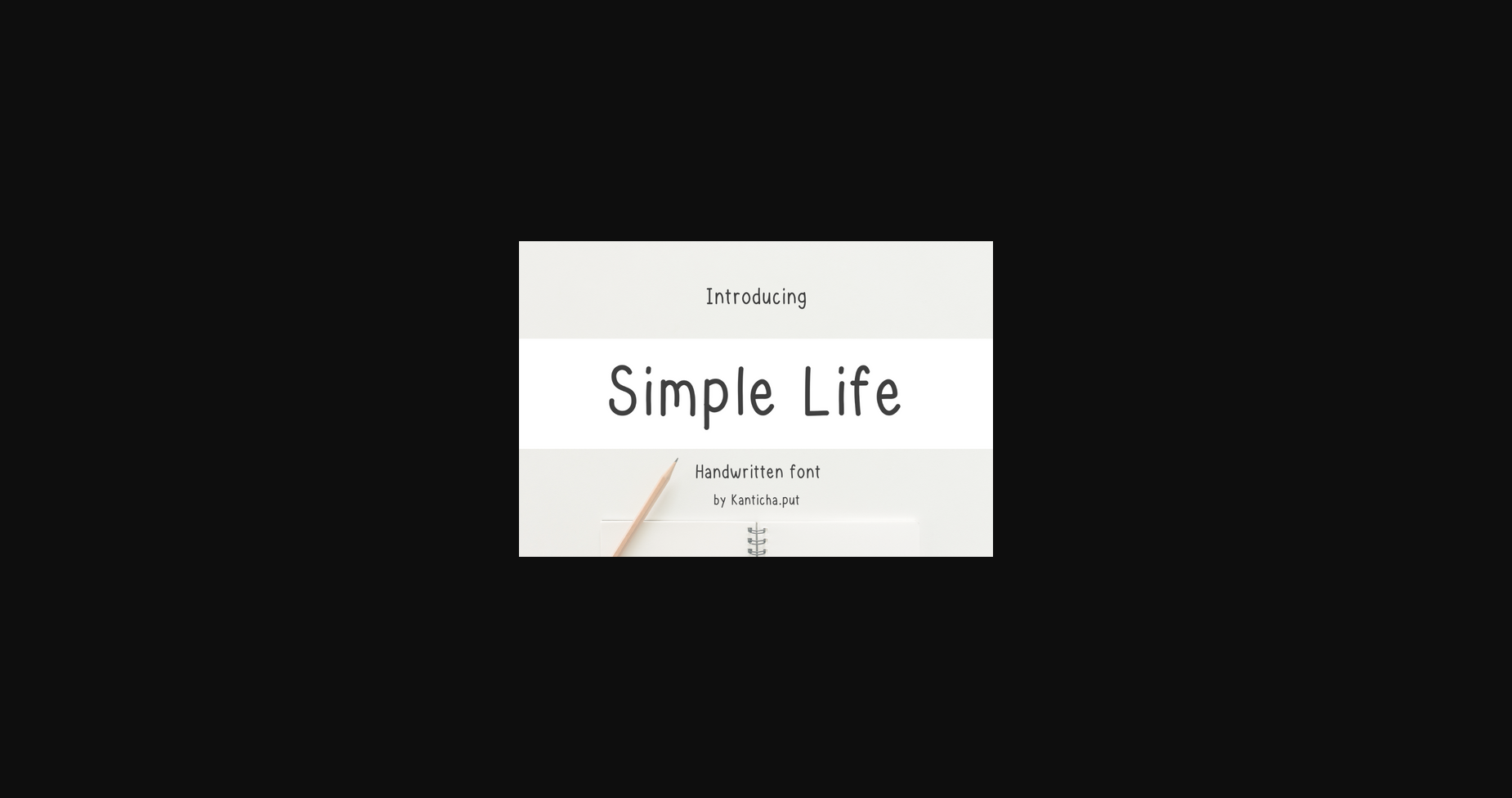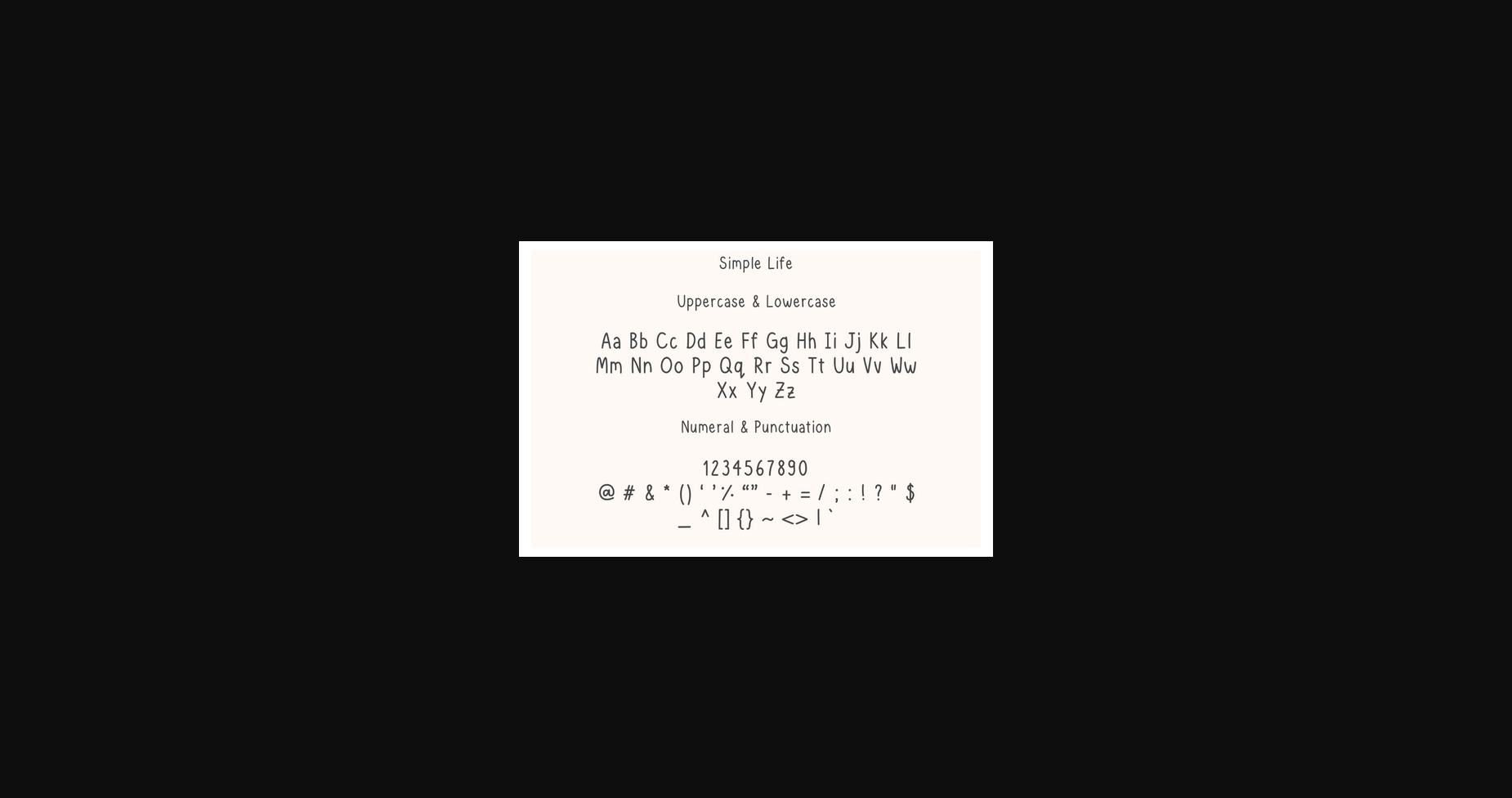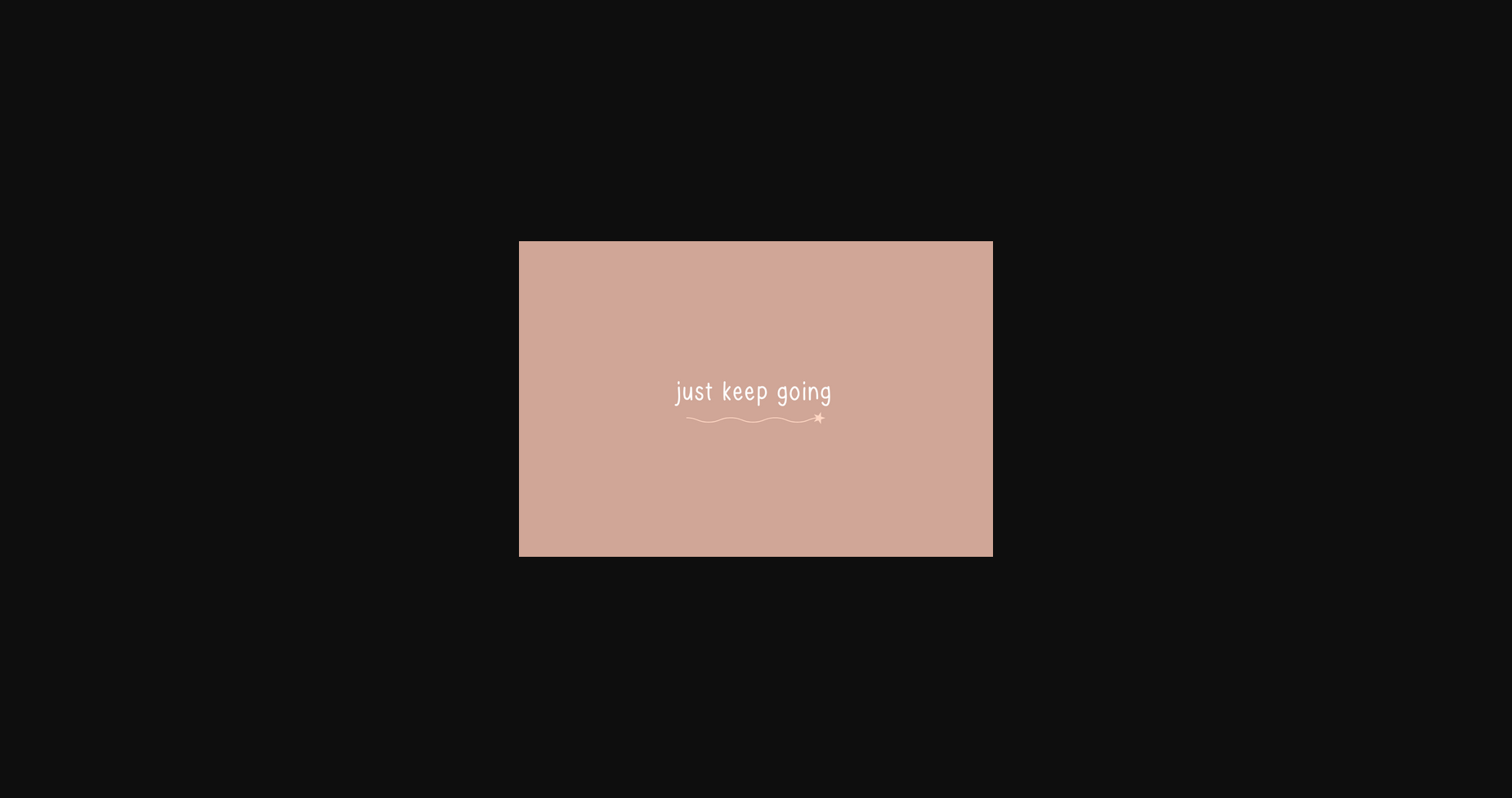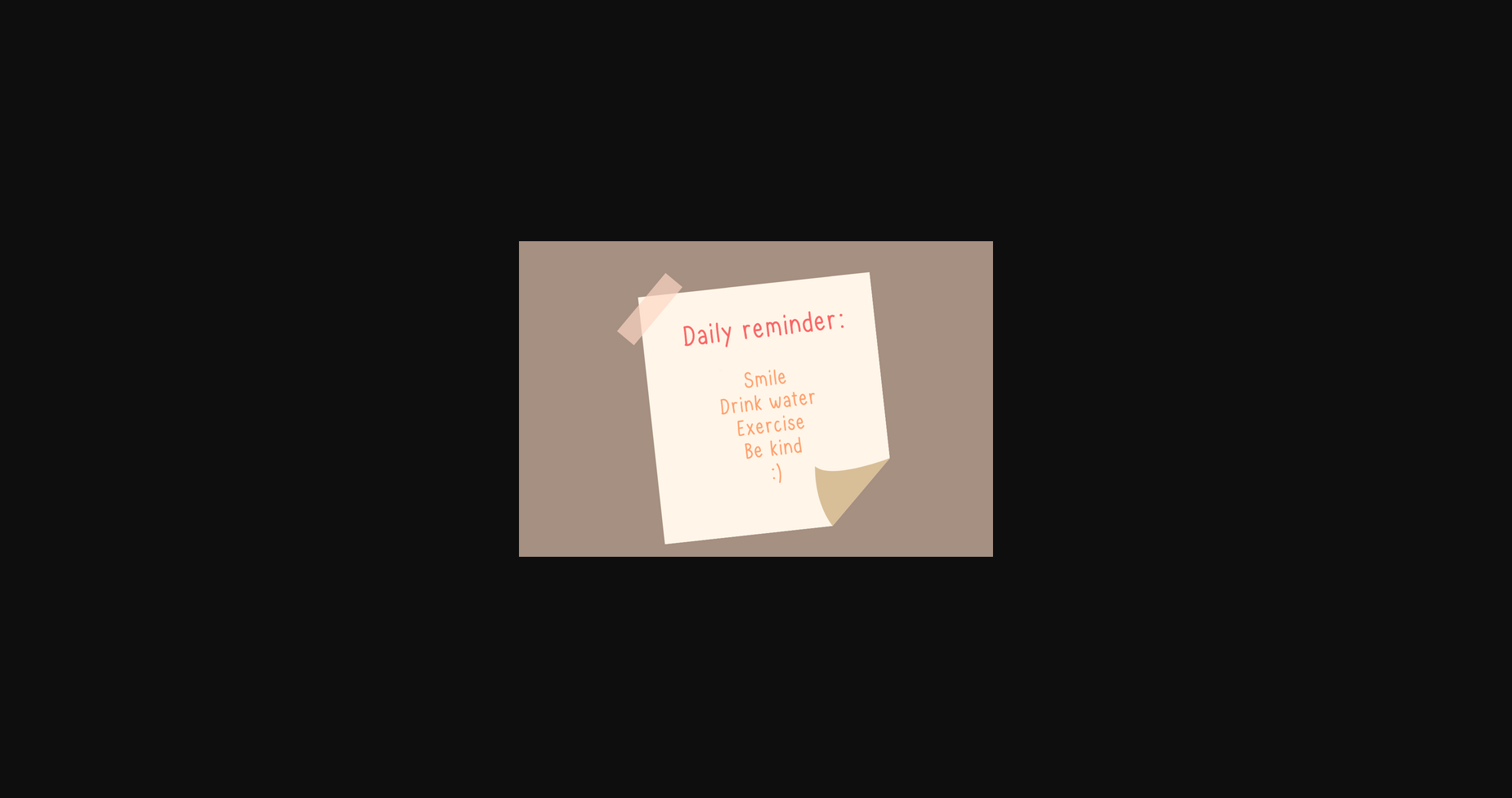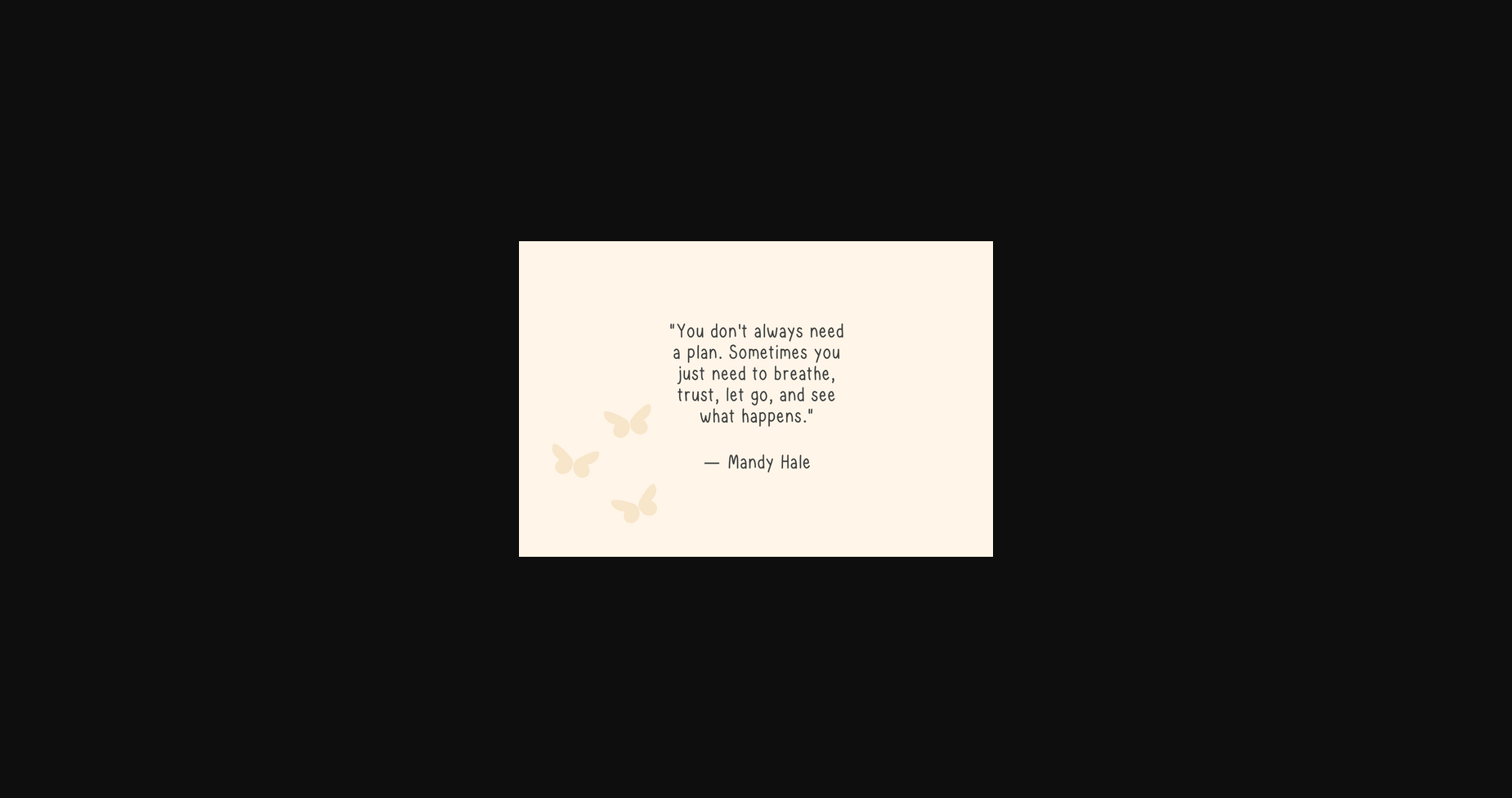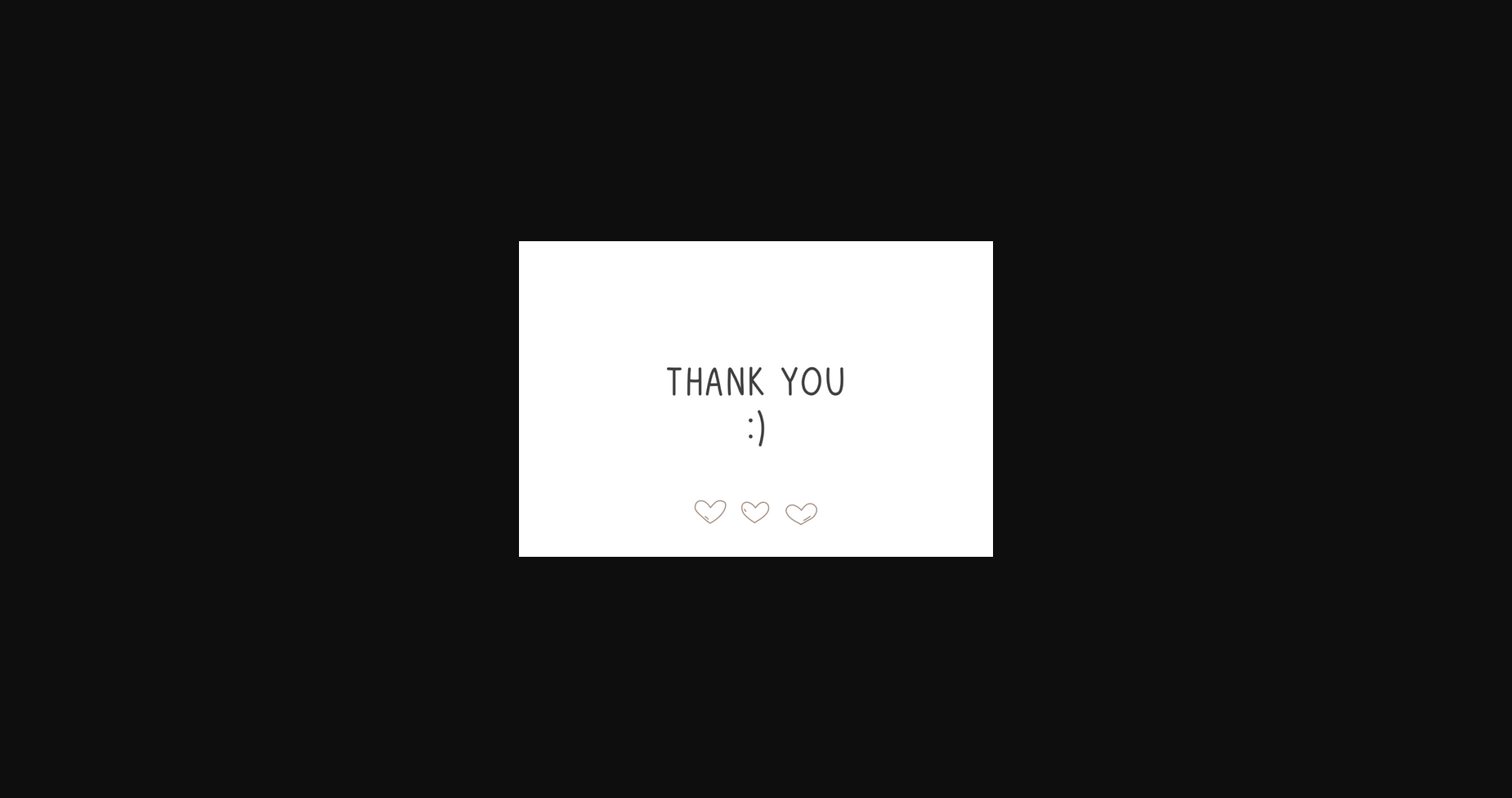
HomeSans Serif FontsSimple Life Font Sans Serif Fonts Simple Life Font FacebookXPinterestWhatsApp 1 of 8 ... Simple Life Font Poster 2... Simple Life Font Poster 3... Simple Life Font Poster 4... Simple Life Font Poster 5... Simple Life Font Poster 6... Simple Life Font Poster 7... Simple Life Font Poster 8... About Simple Life Font Simple Life is a simple and neat sans-serif font with a round and minimalistic shape. Its clean and contemporary design is a great choice for any project. DOWNLOAD NOW People also explored Island Namina Font Finance Font Obeon Font Strangeways Font Espresso Font Melovice Font Billiboldy Font Mooncake Font Prior Font 454 0 TagsSimple Life Font Previous articleMagsen FontNext articleModern Day Font LEAVE A REPLY Cancel reply Comment: Please enter your comment! Name:* Please enter your name here Email:* You have entered an incorrect email address! Please enter your email address here Website: Save my name, email, and website in this browser for the next time I comment. Personal Use Free Happy Santa Personal Use Free Read more about this font Fifty Five Personal Use Free Read more about this font Castina Personal Use Free Read more about this font Crayones Personal Use Free Read more about this font BLOG 5 Fonts That Will Dominate Design Trends in 2026 5 Fonts for 2026 That Will Dominate Design Trends Typography plays a critical role in visual communication, and as we look ahead to 2026, it’s... The 10 Best Handwriting Fonts to Add Personality to Your Designs Top 7 Google Fonts Alternatives for Faster and Privacy-Friendly Web Design (2025) Free vs Paid Fonts: Why Investing in Premium Fonts Is Worth It